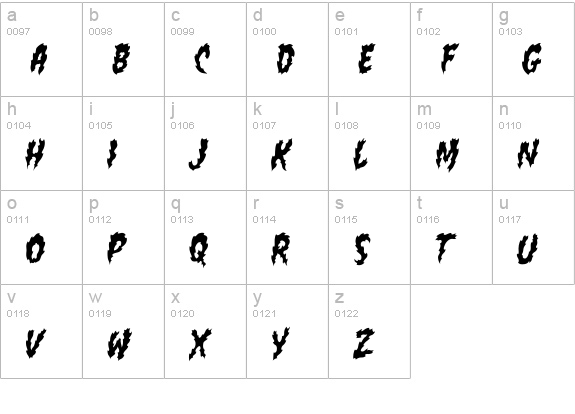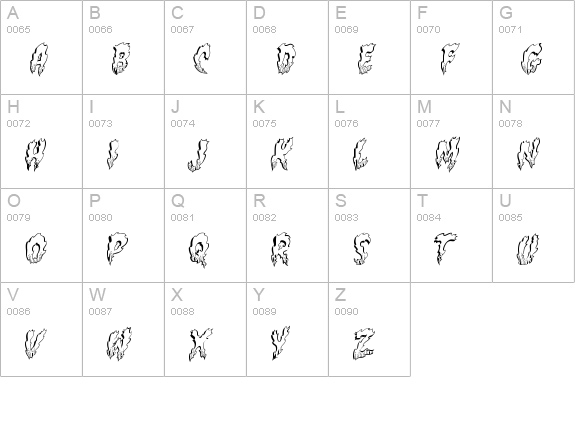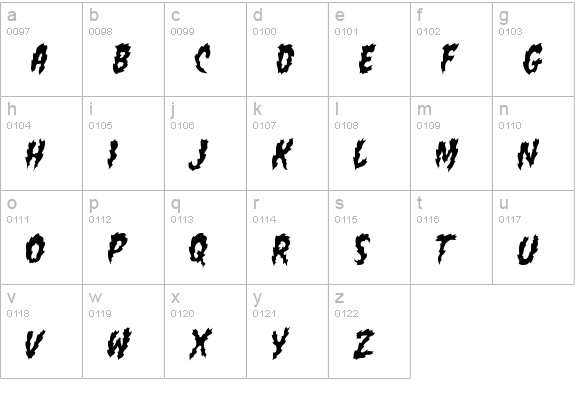
CCFlameOn Font Details
Introducing CCFlameOn font, a fiery and dynamic typeface that is sure to ignite your design projects with its bold and energetic appearance. Inspired by the flickering flames of a blazing fire, this font exudes passion and intensity, making it perfect for projects that demand attention and make a statement. CCFlameOn font is available for free download at FontsMarket.com, where you can unleash its fiery spirit and add a touch of heat to your designs. Whether you're looking to create eye-catching headlines, striking logos, or impactful posters, CCFlameOn font will set your designs ablaze with its unique and powerful aesthetic. Embrace the heat and intensity of CCFlameOn font and let your creativity burn bright with this captivating typeface. Download it for free today and set your designs on fire!